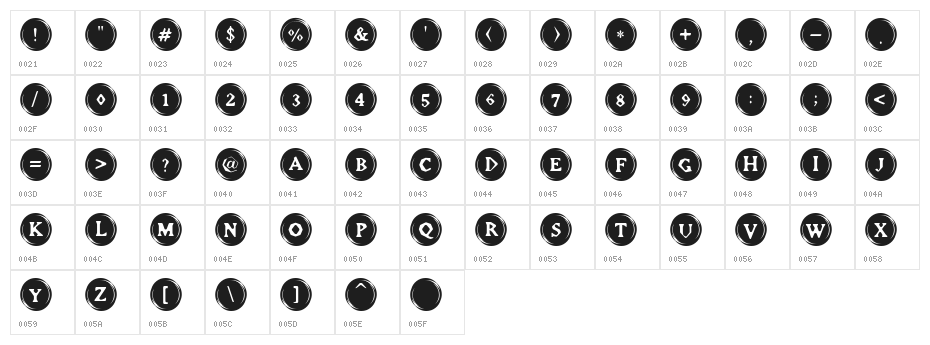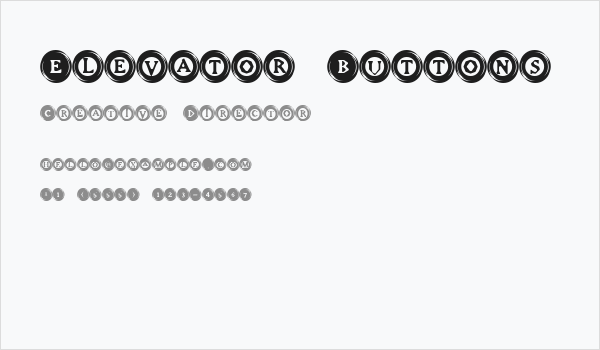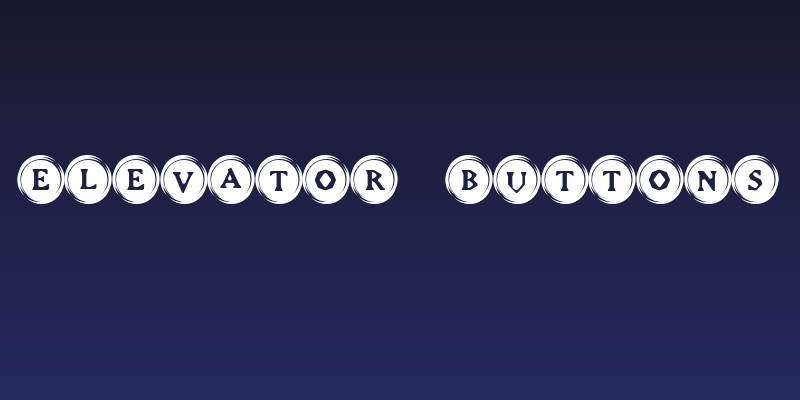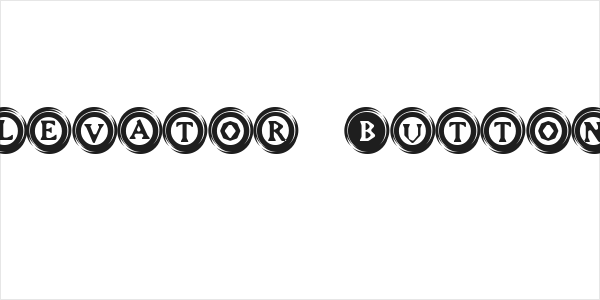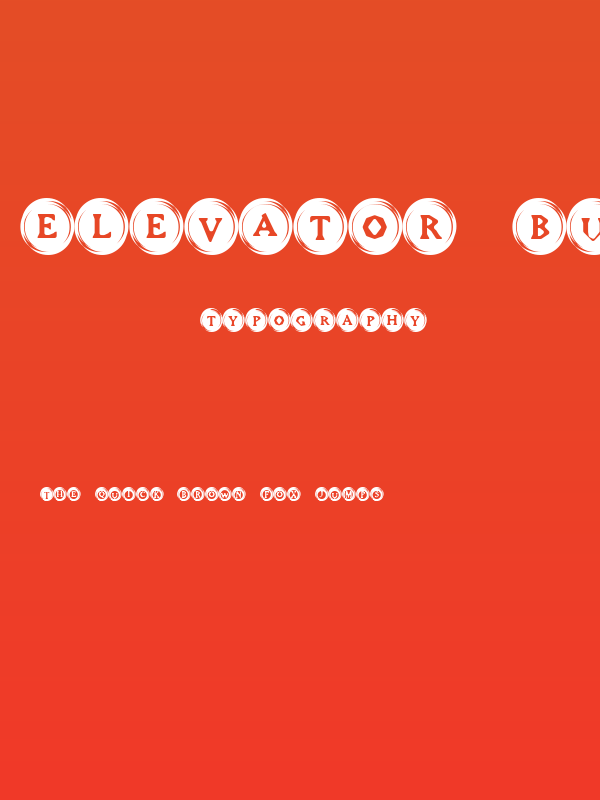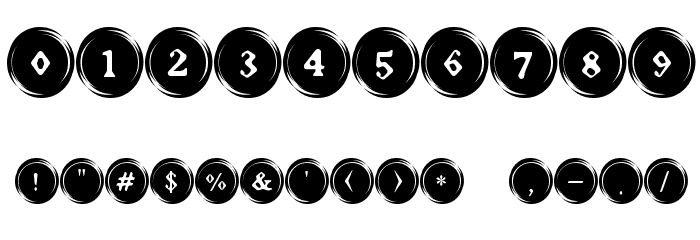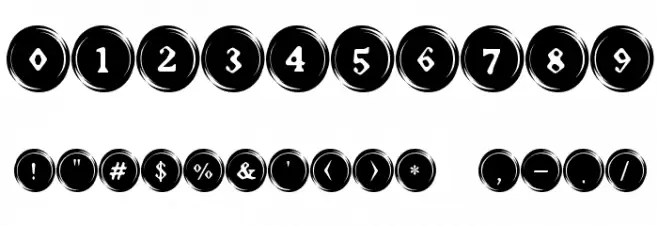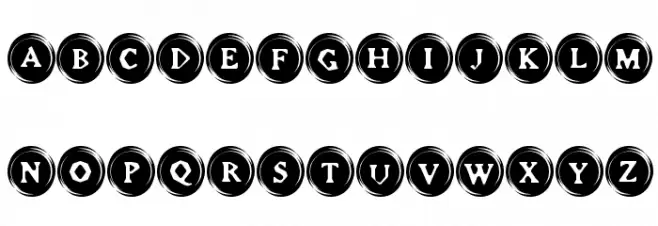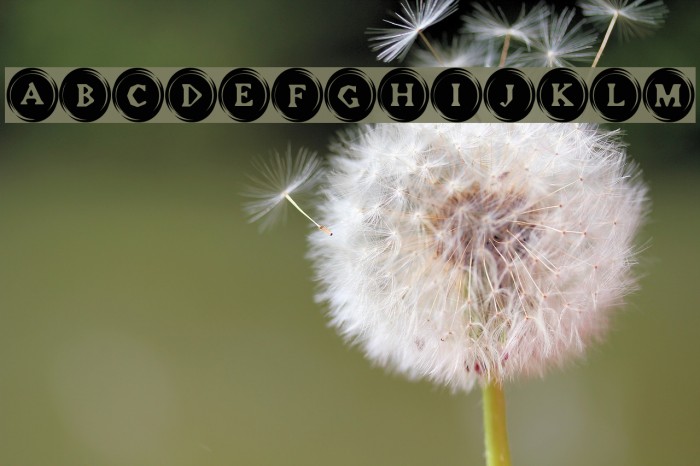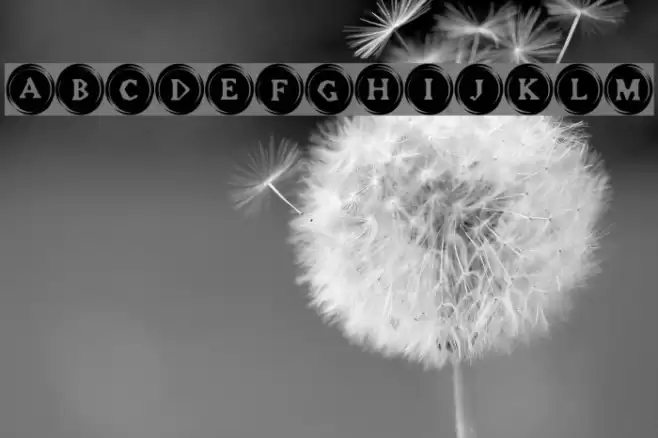
Elevator Buttons Font
Elevator Buttons Description
This font features a bold, circular design reminiscent of vintage elevator buttons. Each character is enclosed within a circular border, creating a distinct and eye-catching appearance. The letters and numbers are bold and clear, making them highly legible. The overall style is decorative, with a retro flair that adds a touch of nostalgia. The font includes uppercase letters, numbers, and a variety of special characters, all maintaining the consistent circular motif. The design is suitable for projects that require a unique and memorable typeface, particularly those aiming for a vintage or industrial aesthetic.
| Overall Style | Vintage, Decorative |
| Use Case | Logos, Headlines, Signage |
| Proposed Projects | Ideal for vintage-themed designs, signage, branding, and decorative projects. |